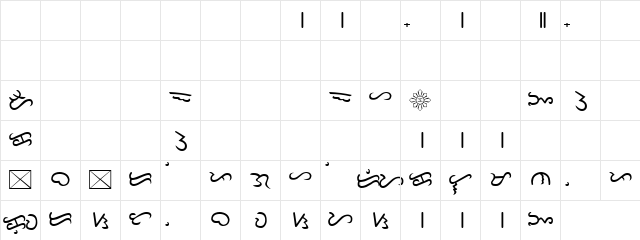
Tagalog Doctrina 1593 Regular
Design Context for Tagalog Doctrina 1593 Typeface
Tagalog Doctrina 1593 is a composed and adaptable typeface that performs quietly and consistently across a wide range of design contexts.